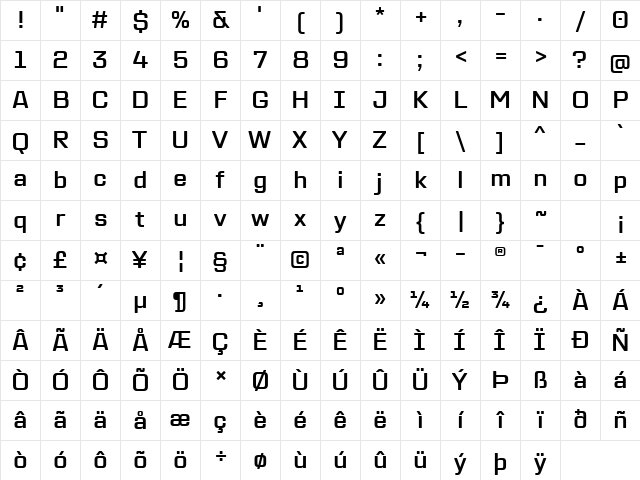
TT Lakes Neue Trial DemiBold Free Font
TT Lakes Neue Trial DemiBold
Style: DemiBold
Designer: Designers Vika Usmanova, Ksenia Ushakova, Antonina Zhulkova, Tamara Streltsova, Anastasia Pogorelova, Marina Khodak. Technical designers Yulia Gonina, Ivan Gladkikh, Yuriy Nako, Viktor Rubenko.
Complete TT Lakes Neue Trial DemiBold glyph index. Displaying only characters natively supported by TT Lakes Neue Trial DemiBold font.
Design Context for TT Lakes Neue Trial
TT Lakes Neue Trial is a composed and adaptable typeface that performs quietly and consistently across a wide range of design contexts. Its bold stroke weight gives it real presence on the page.